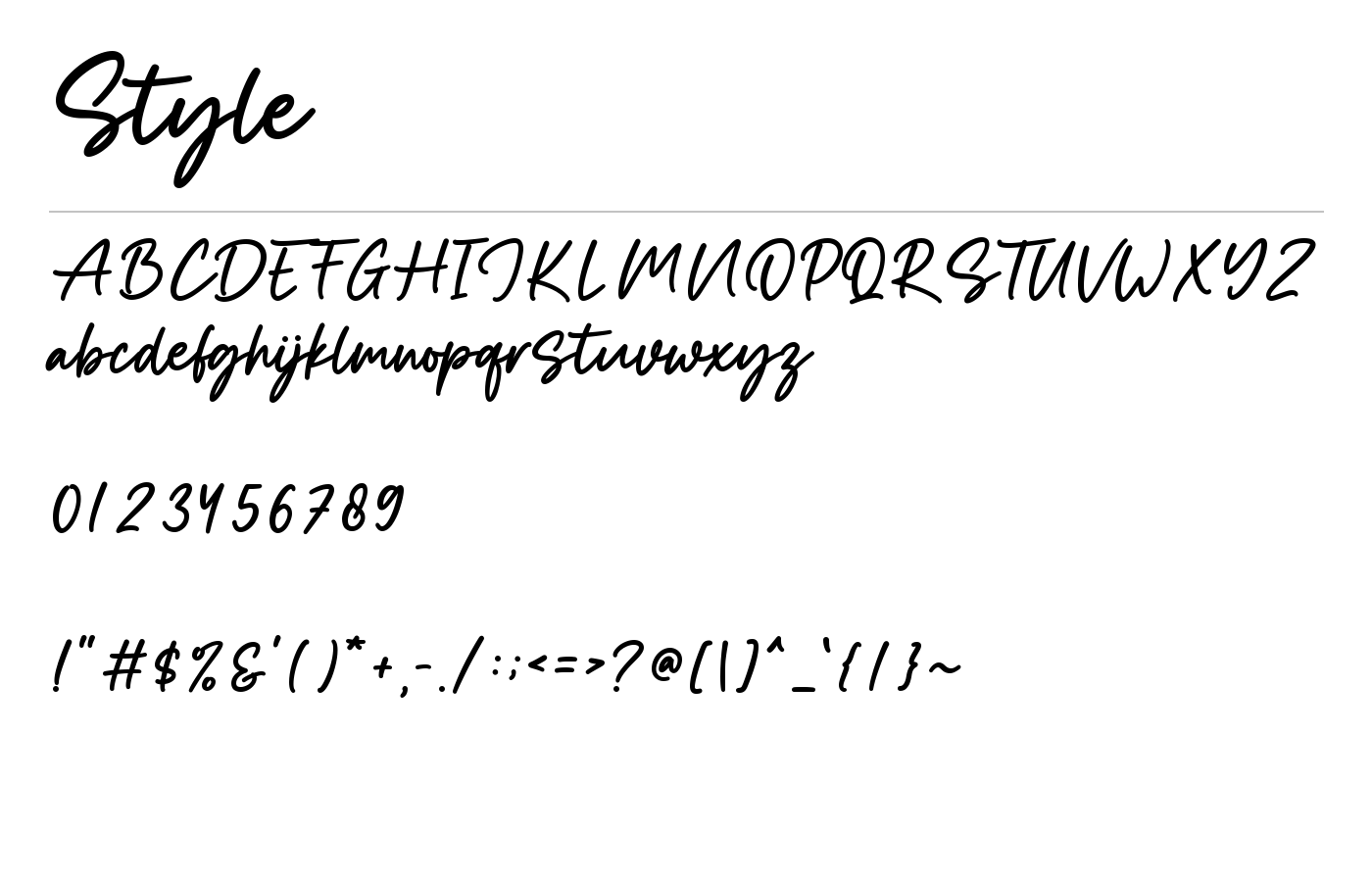
Style Font is a casual, handwritten script with smooth, flowing strokes and a lively, natural feel. Its medium weight and moderate contrast give it a friendly yet refined look, making it ideal for creative branding, invitations, and stylish headlines where a personal touch is desired. This font works well to convey warmth and approachability while maintaining elegance.
Style Font
About Style Font